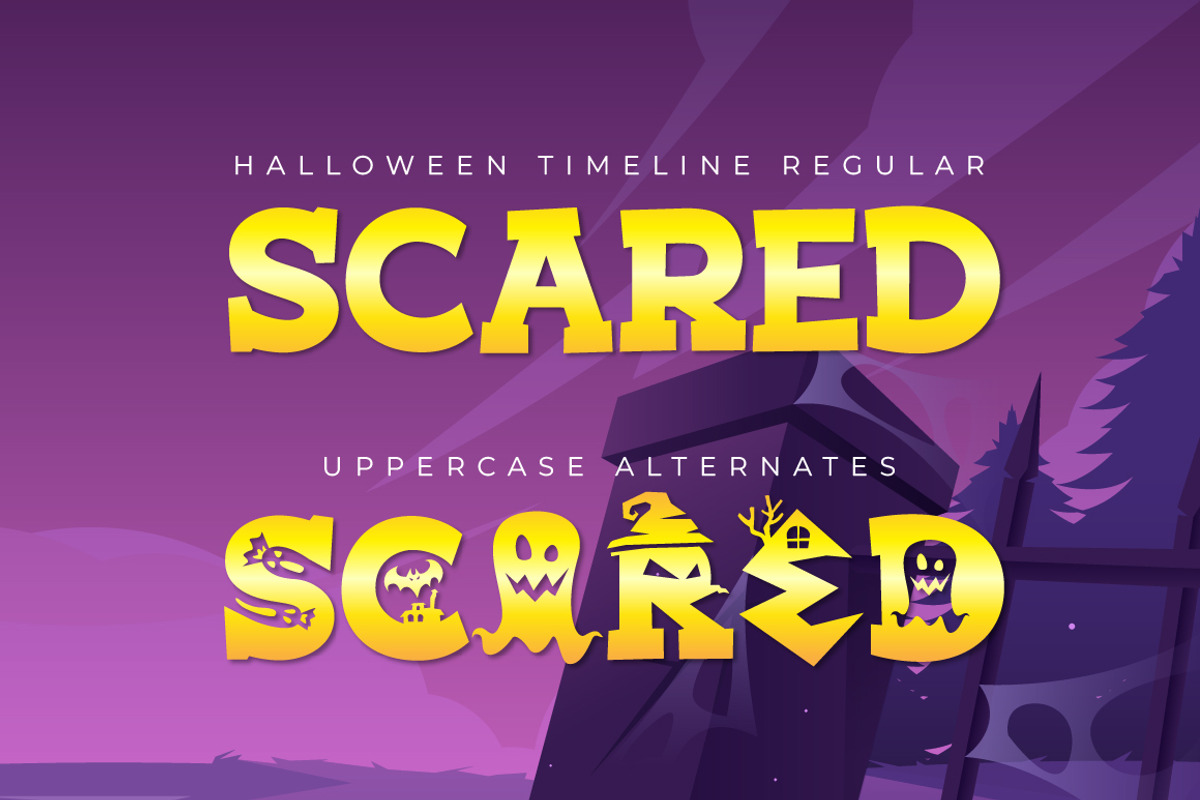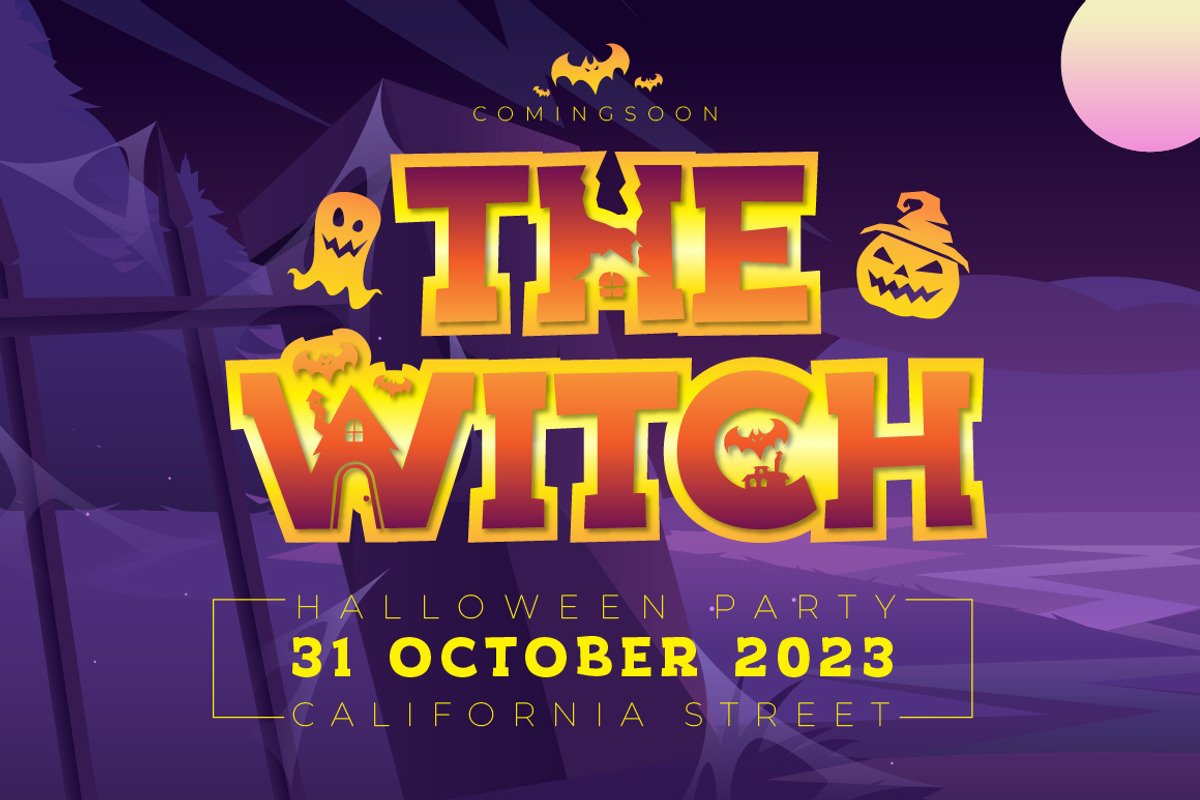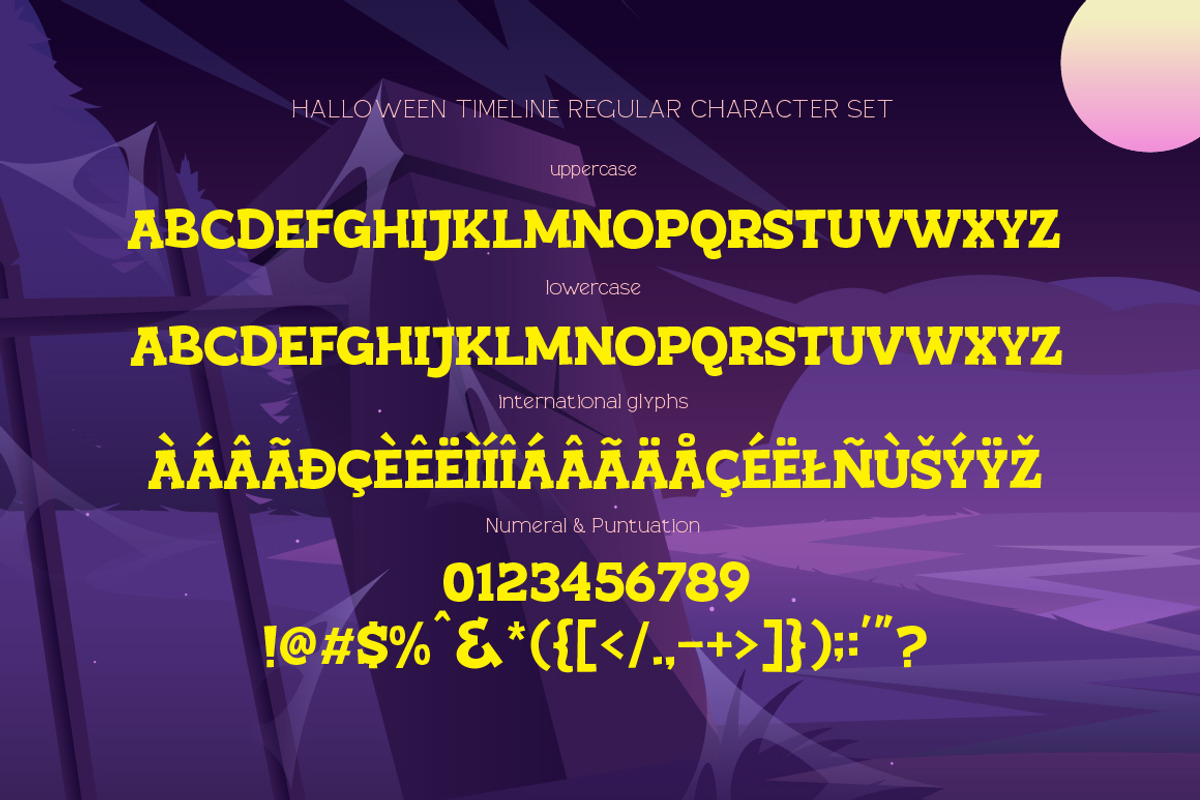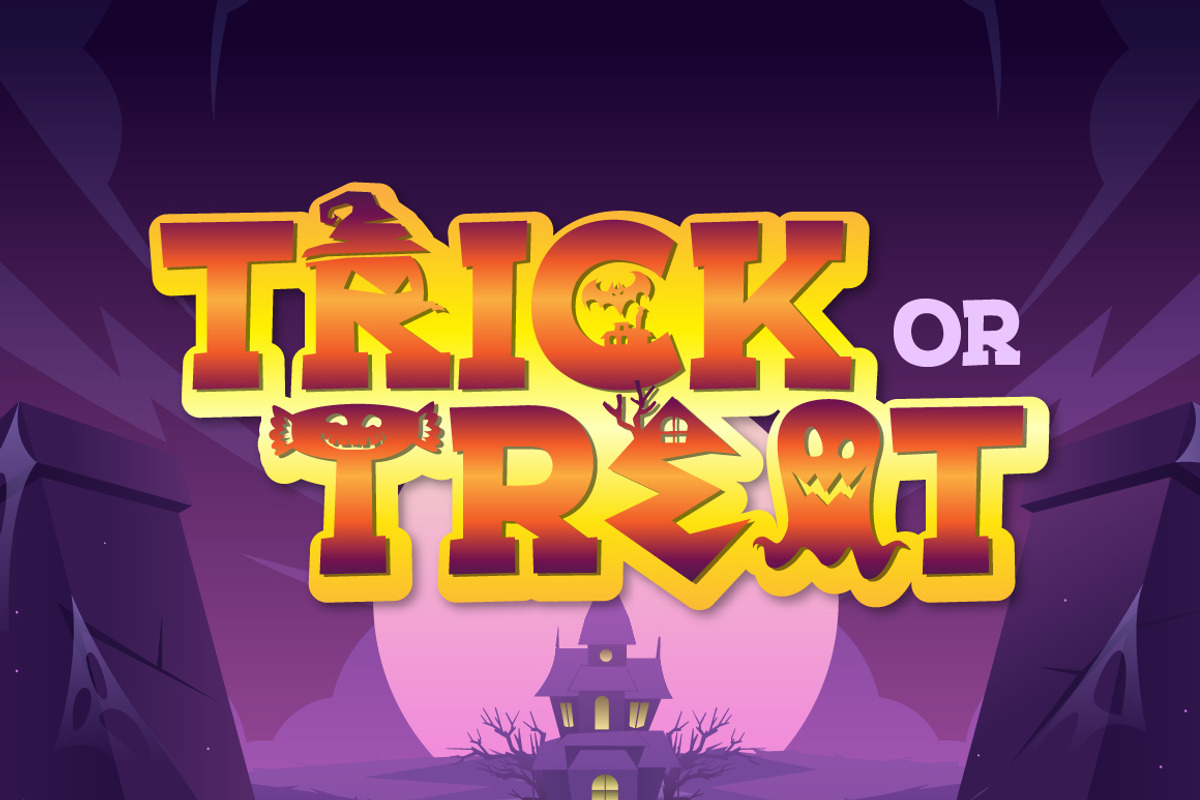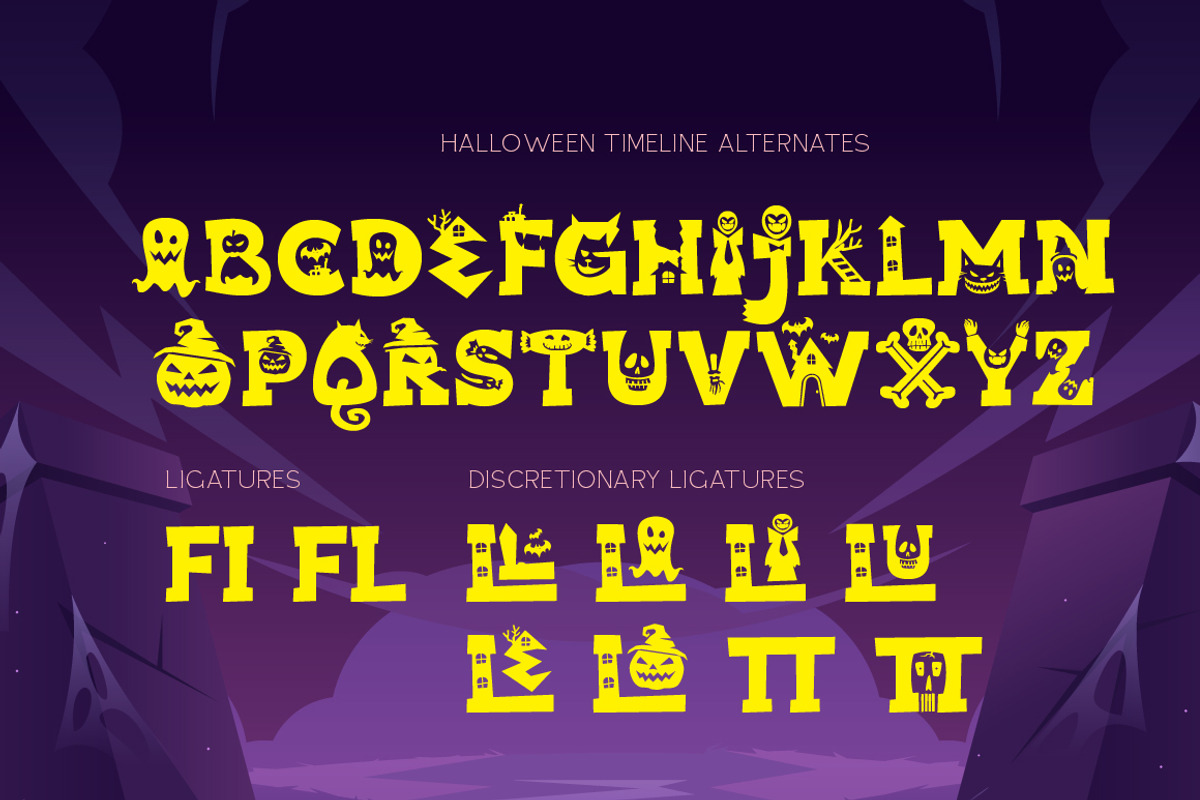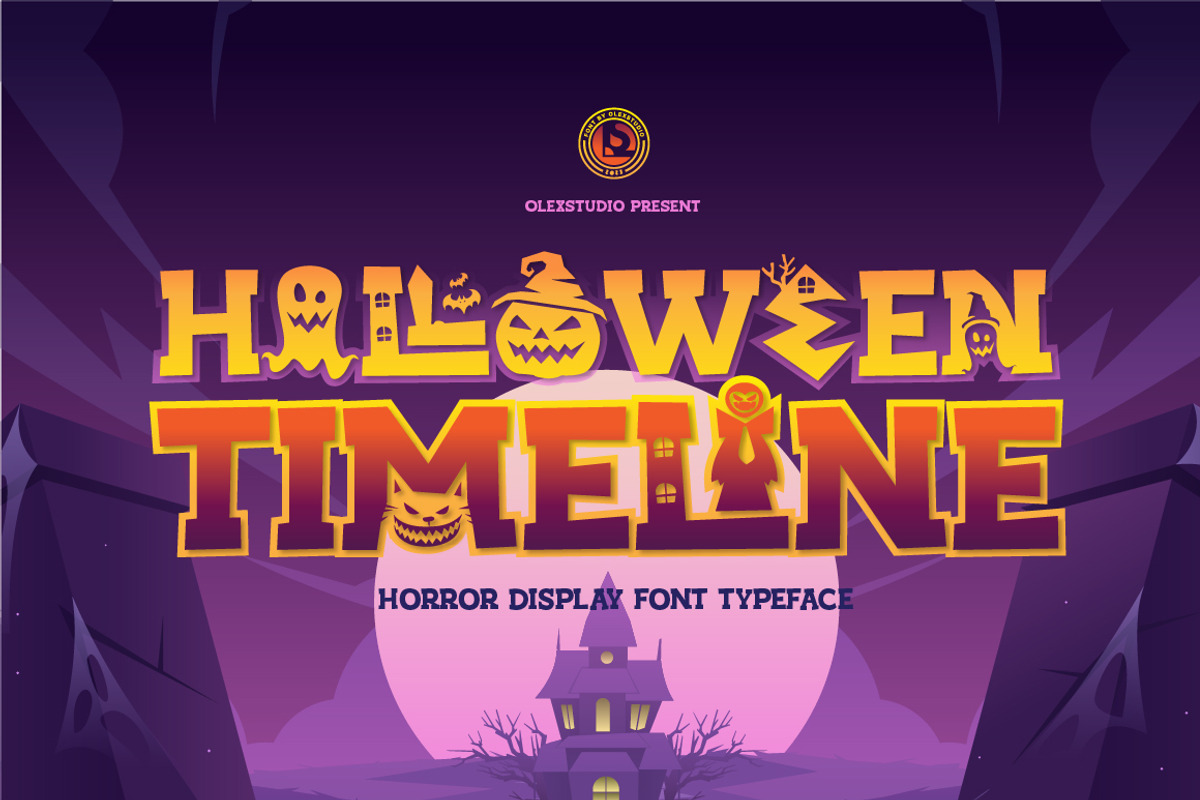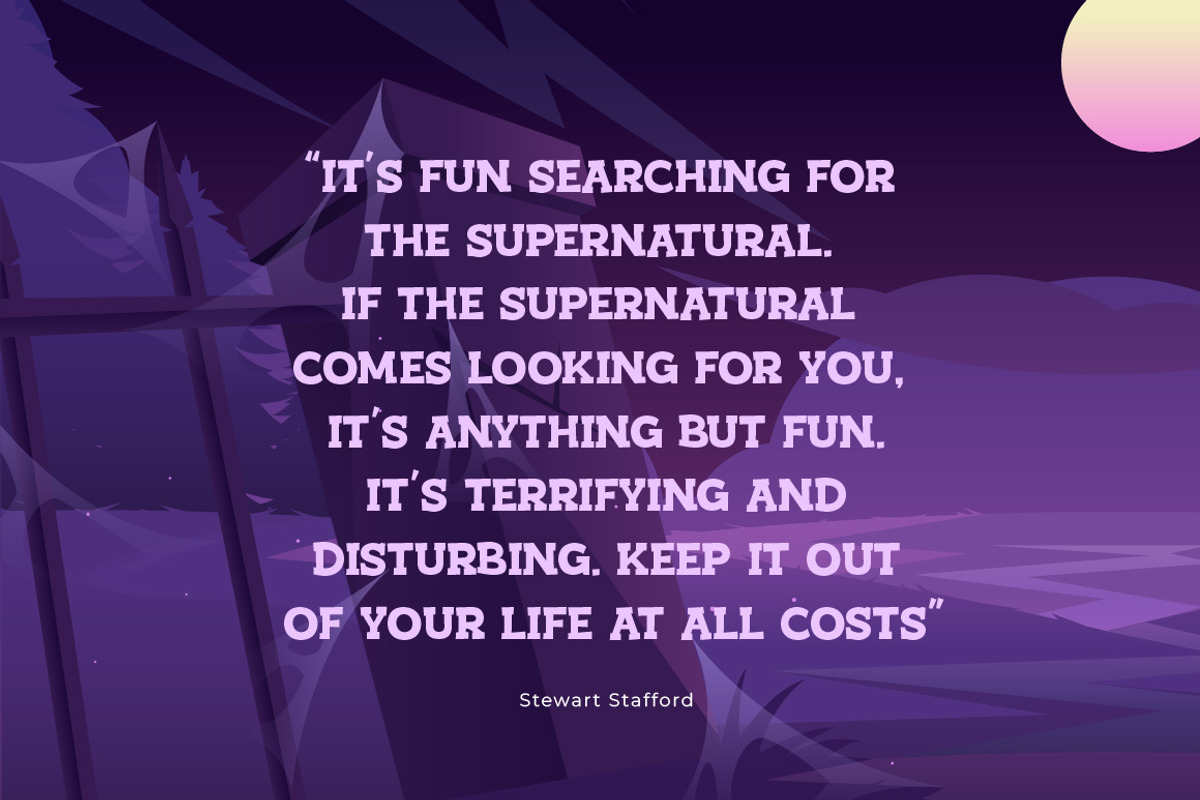
HALLOWEEN TIMELINE
Halloween Timeline Font will look gorgeous on all your designs, invitation, poster design, book design, branding materials, logo's, and all project design other.
Halloween Timeline Font contains standard characters, all Character is Uppercase, Alternates, numbers, punctuation, ligatures and international glyphs. You will receive OTF, TTF files & WEBFONT.